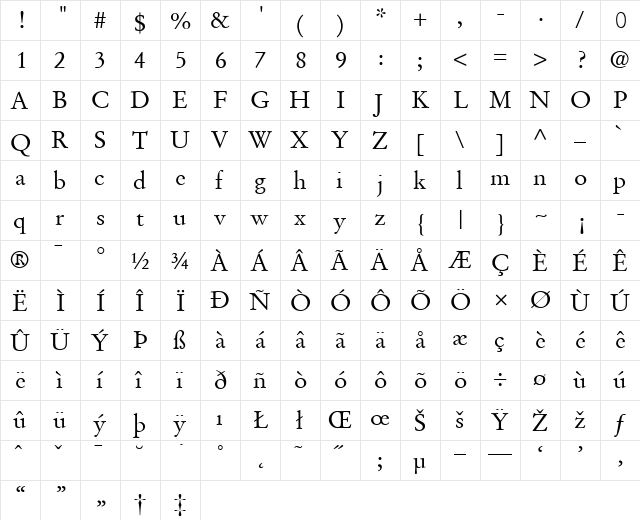
SGaramond Regular Font Preview
SGaramond Regular
SGaramond Regular Font Details
Design Context for SGaramond Typeface
SGaramond offers clean, dependable letterforms without strong stylistic allegiance, making it a practical choice for designers who need flexibility.